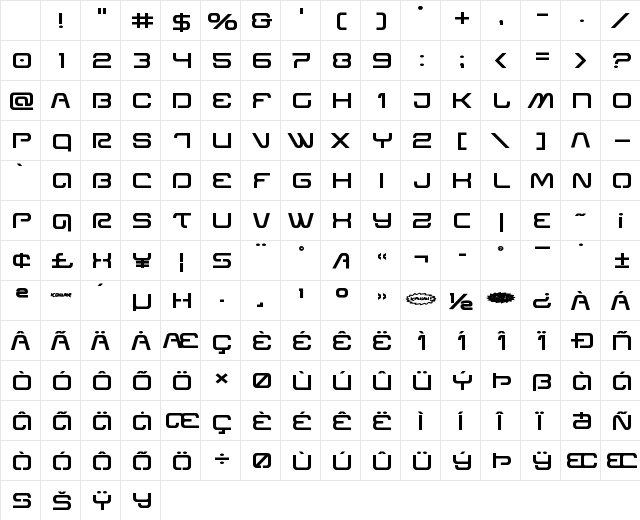
Complete Miracle Mercury Semi-Bold Expanded glyph index. Displaying only characters natively supported by Miracle Mercury Semi-Bold Expanded font.
Miracle Mercury is a composed and adaptable typeface that performs quietly and consistently across a wide range of design contexts. Its bold stroke weight gives it real presence on the page.